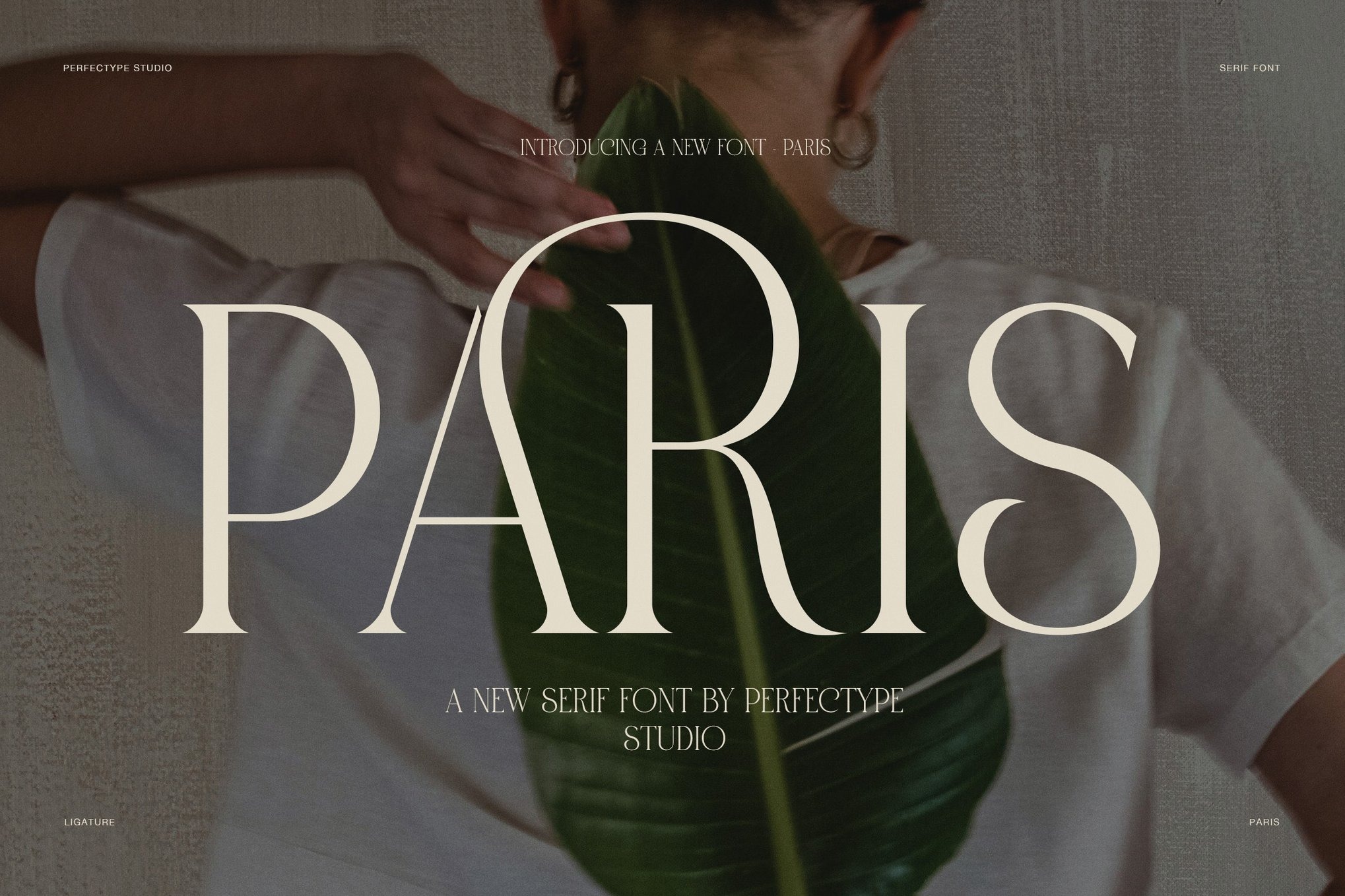
Paris Elegant – Elegant Serif Font
Paris Elegant – Elegant Serif Font is a premium-quality font developed to enhance your work with a polished, modern, and visually elevated look. Paris is an elegant serif font that brings a refined and modern luxury feel to any design project. Moreover, it combines classic serif structure with stylish contemporary details. As a result, it creates a strong visual identity that feels both timeless and modern. In addition, the font shows high contrast strokes, soft curves, and carefully balanced spacing. Therefore, it is perfect for designers who want clean and premium typography.
Furthermore, Paris is designed for fashion, editorial, and branding use. It works very well in luxury layouts, especially where elegance is important. Meanwhile, its letterforms are crafted with attention to detail, so each character feels smooth and expressive. Because of this, the font is easy to read while still looking artistic. In addition, it includes beautiful ligatures and alternates that allow more creative typography combinations. Consequently, designers can build unique wordmarks and stylish compositions with ease.
Moreover, Paris fits many creative needs. For example, it works perfectly in magazine headlines, wedding invitations, logos, and social media branding. At the same time, it also performs well in packaging design and modern advertising. Therefore, it is a flexible font for both print and digital use. In addition, the elegant structure helps improve visual hierarchy in any layout.
Key features include:
Elegant high-contrast serif style
Stylish ligatures and alternates
Fashion and editorial look
Luxury branding design support
Clean and modern letterforms
Strong readability with artistic detail
Furthermore, Paris is built to enhance visual storytelling. Because of its refined design, it gives every project a sense of sophistication. Meanwhile, it maintains a soft and emotional tone that connects well with modern audiences. As a result, it becomes a powerful choice for premium branding projects.